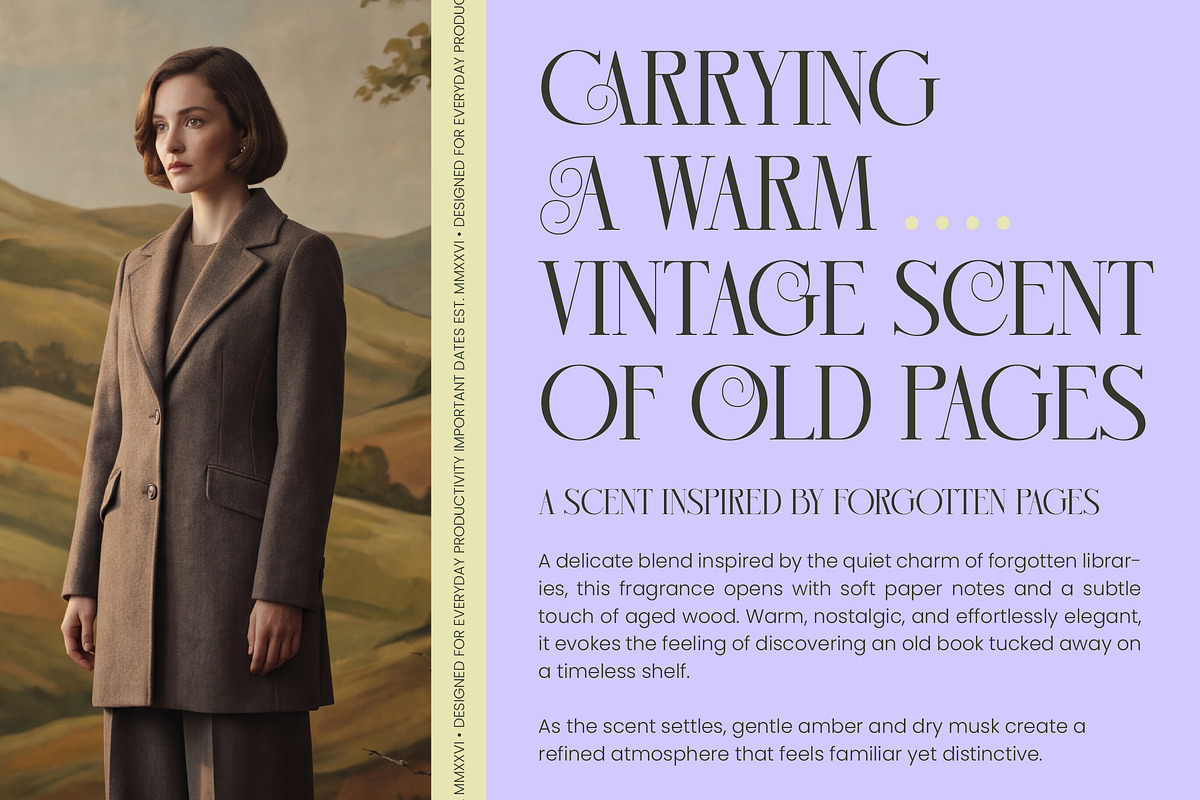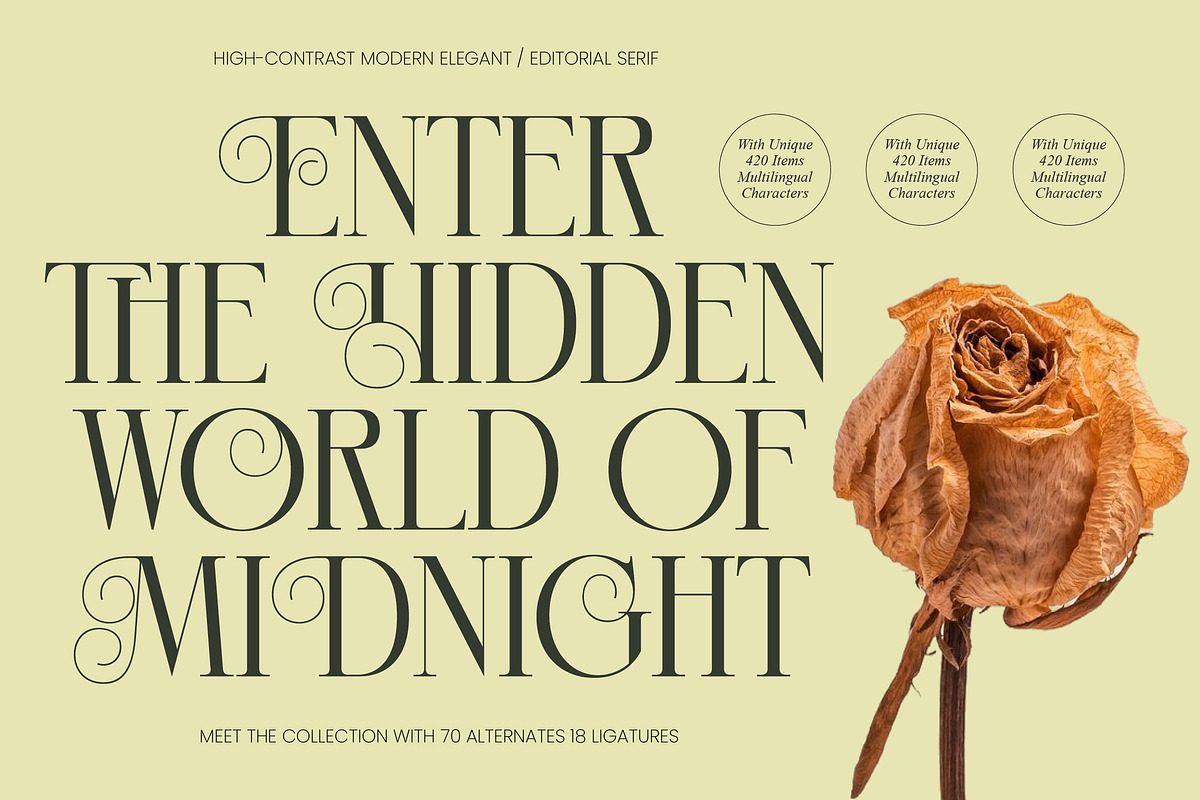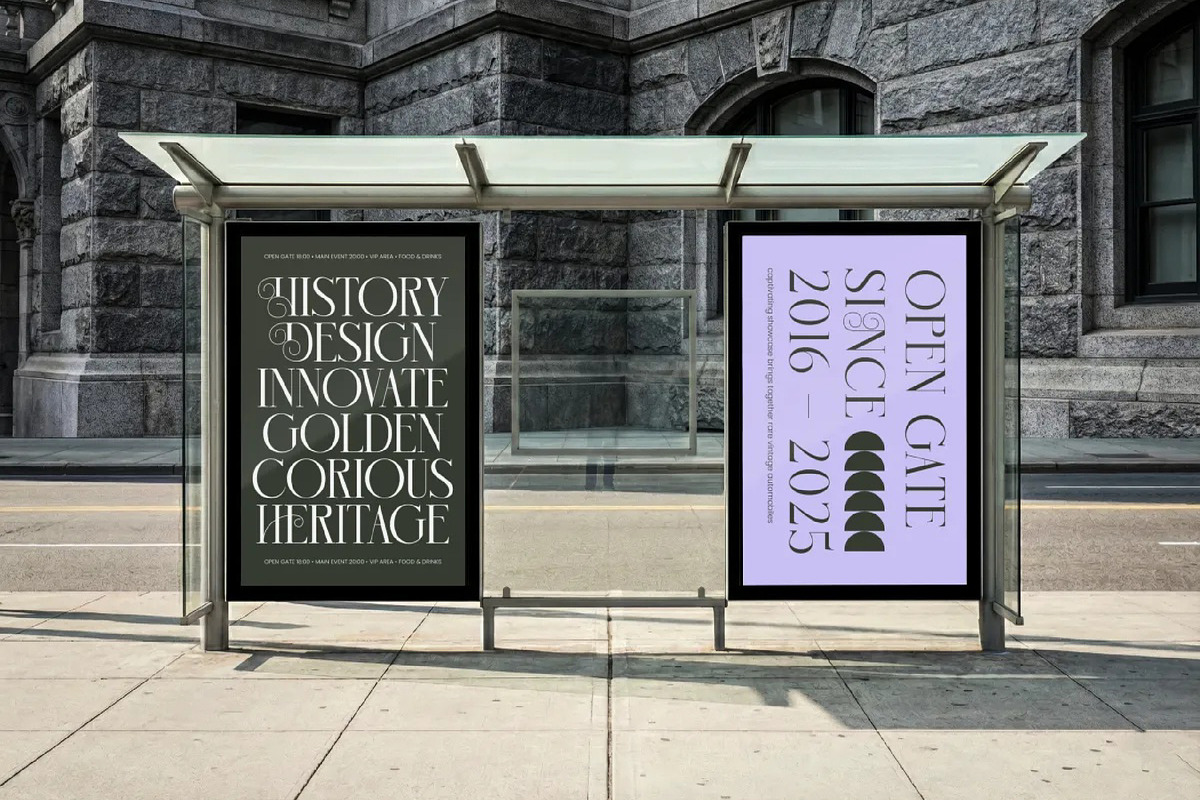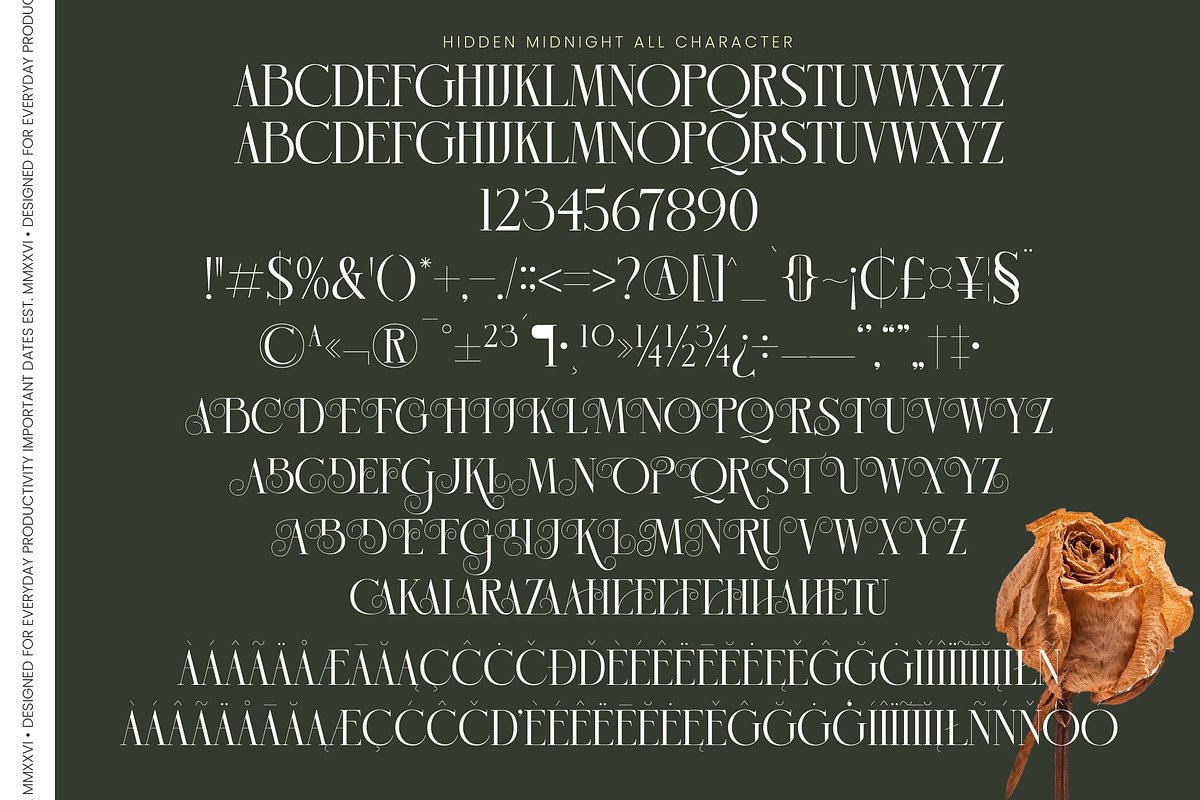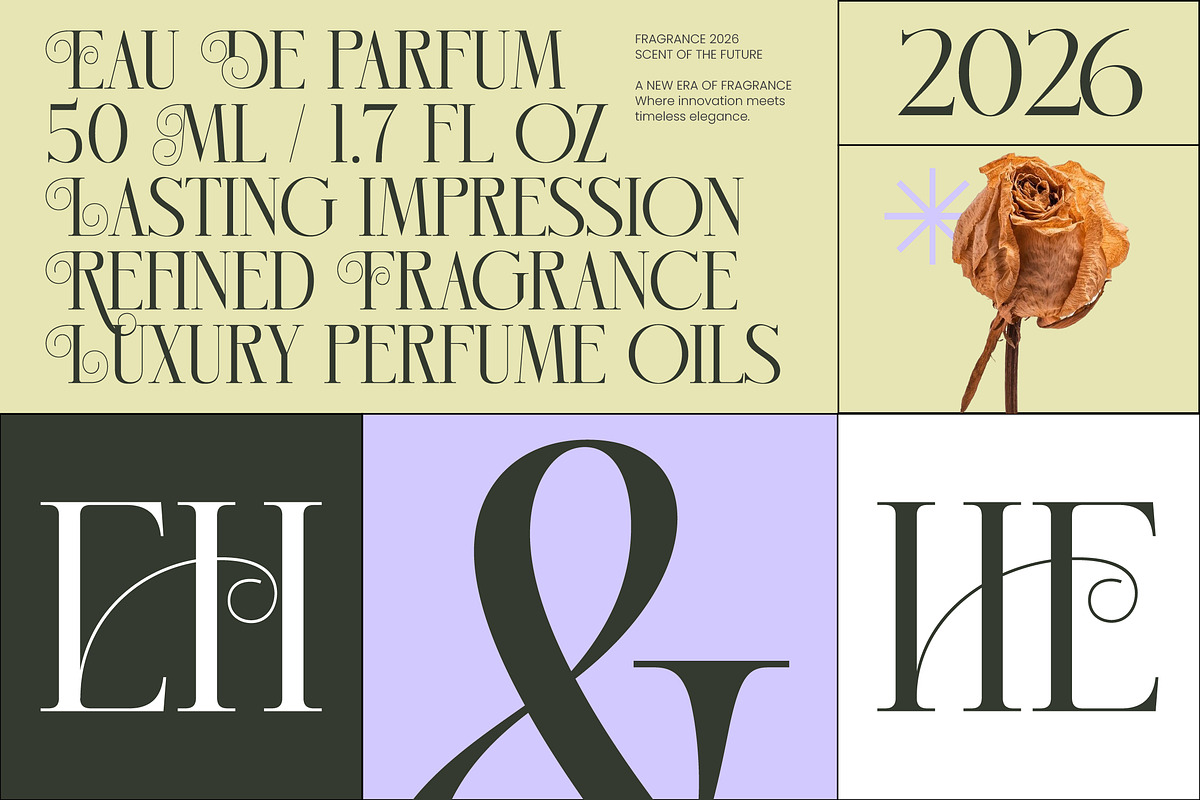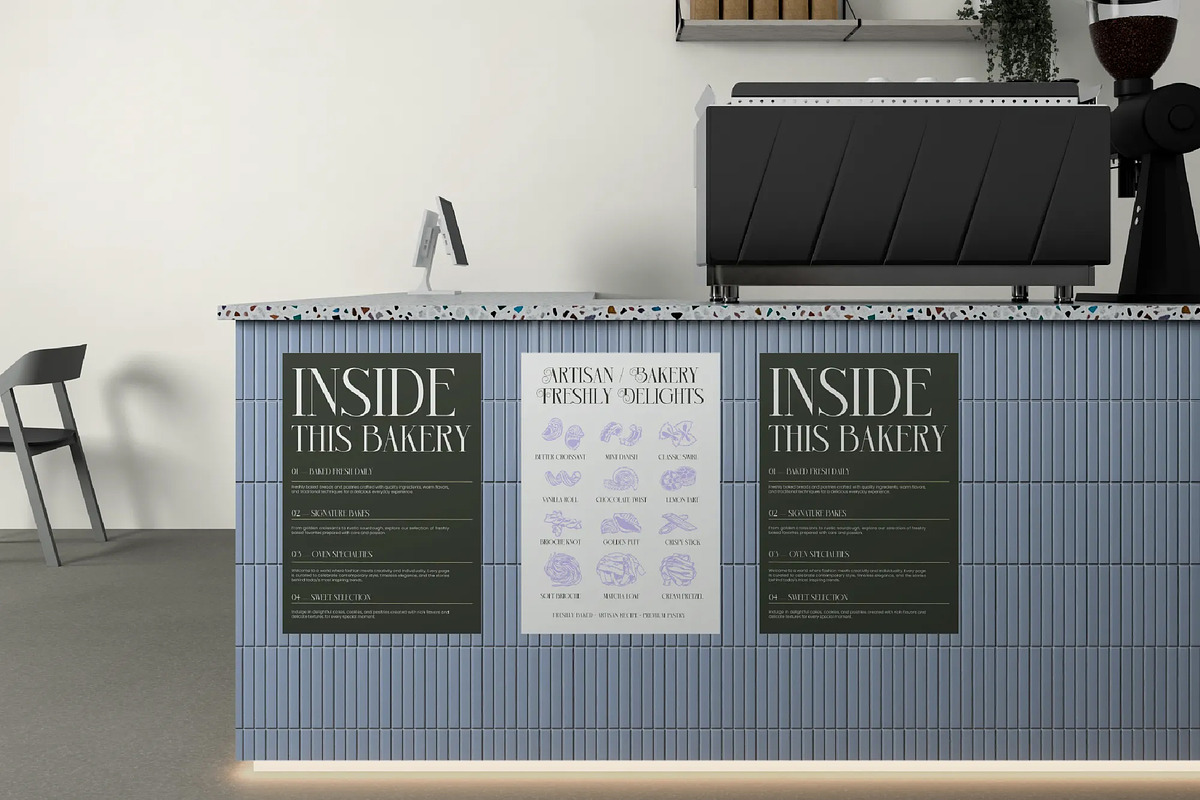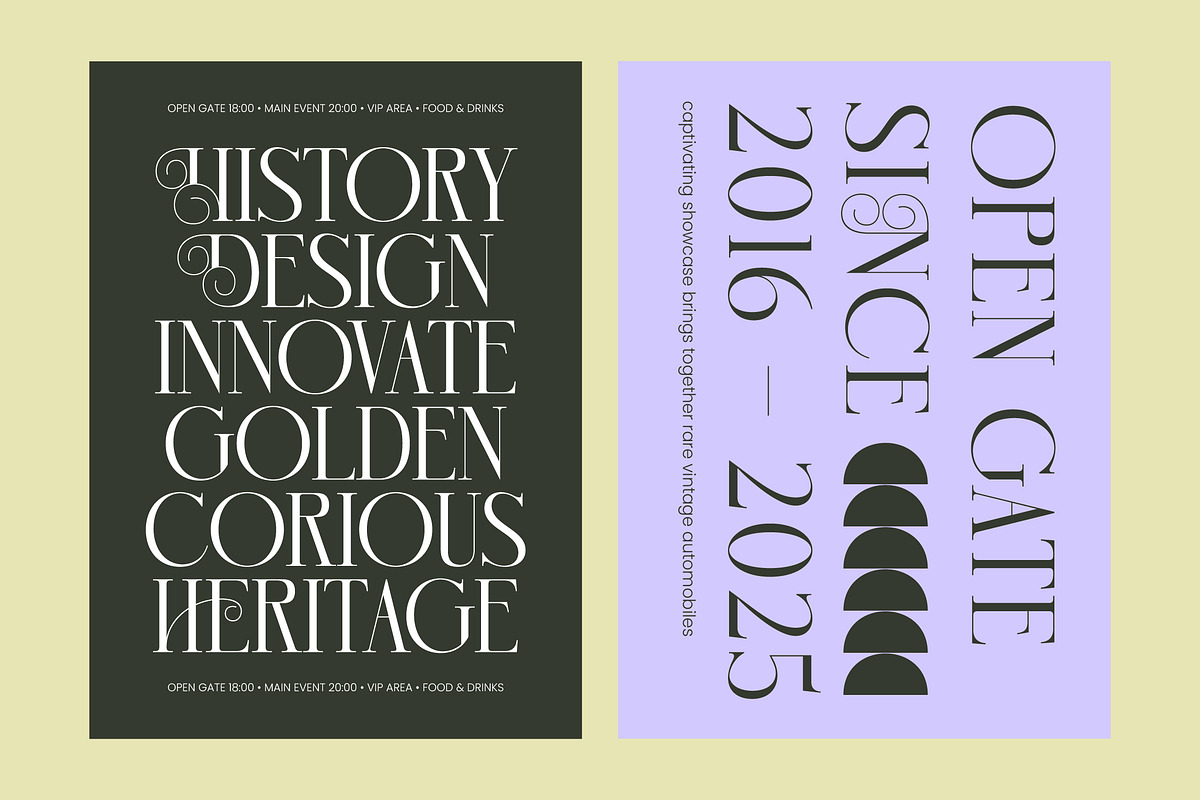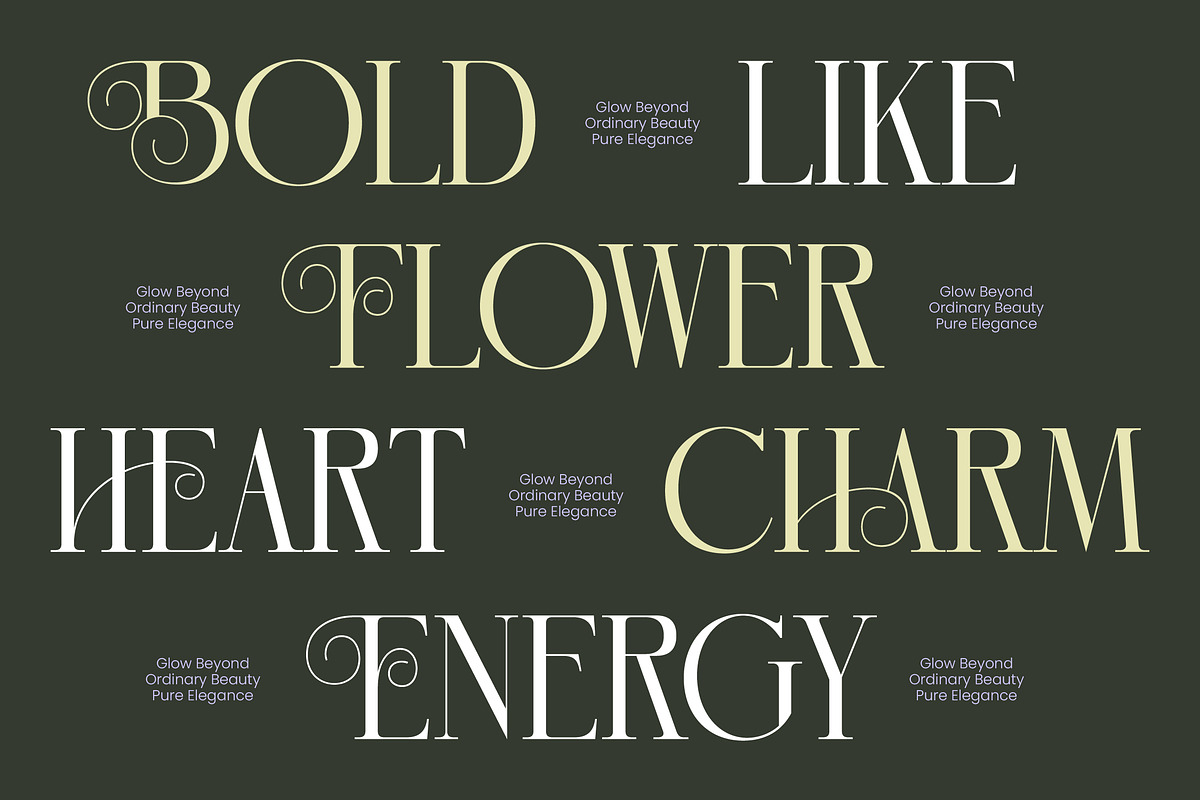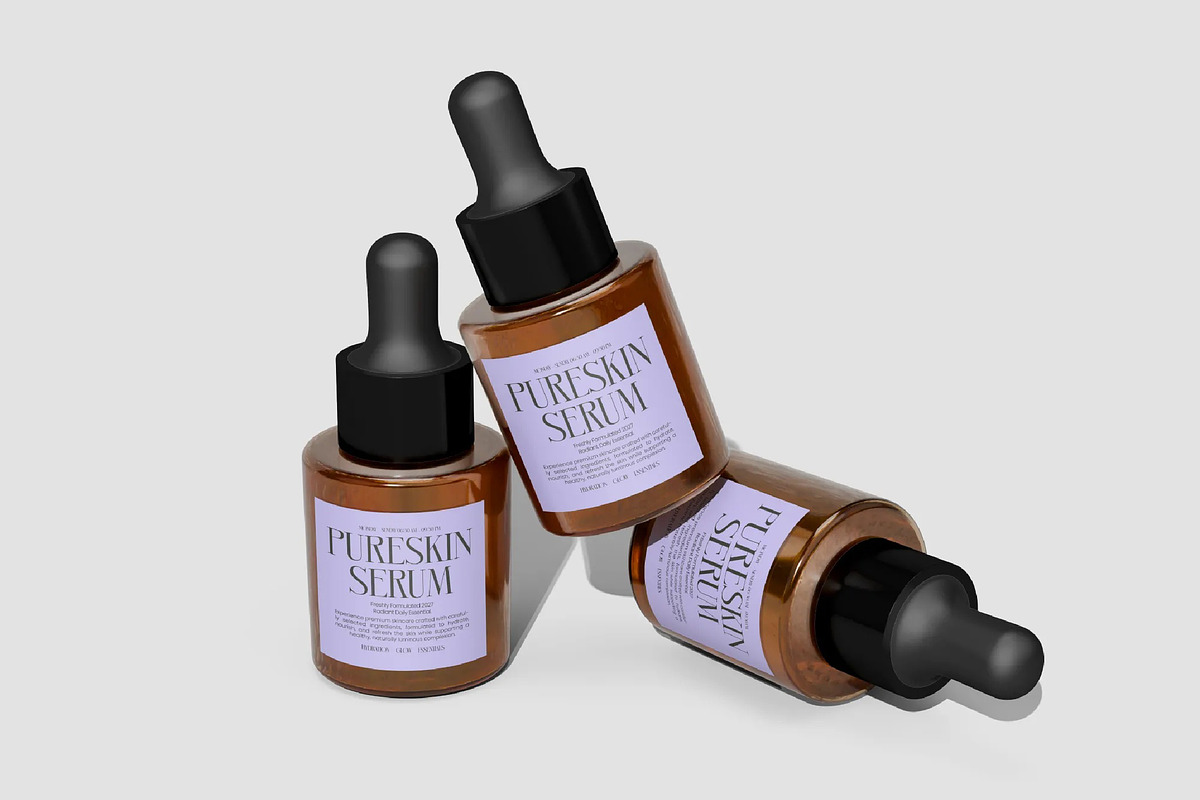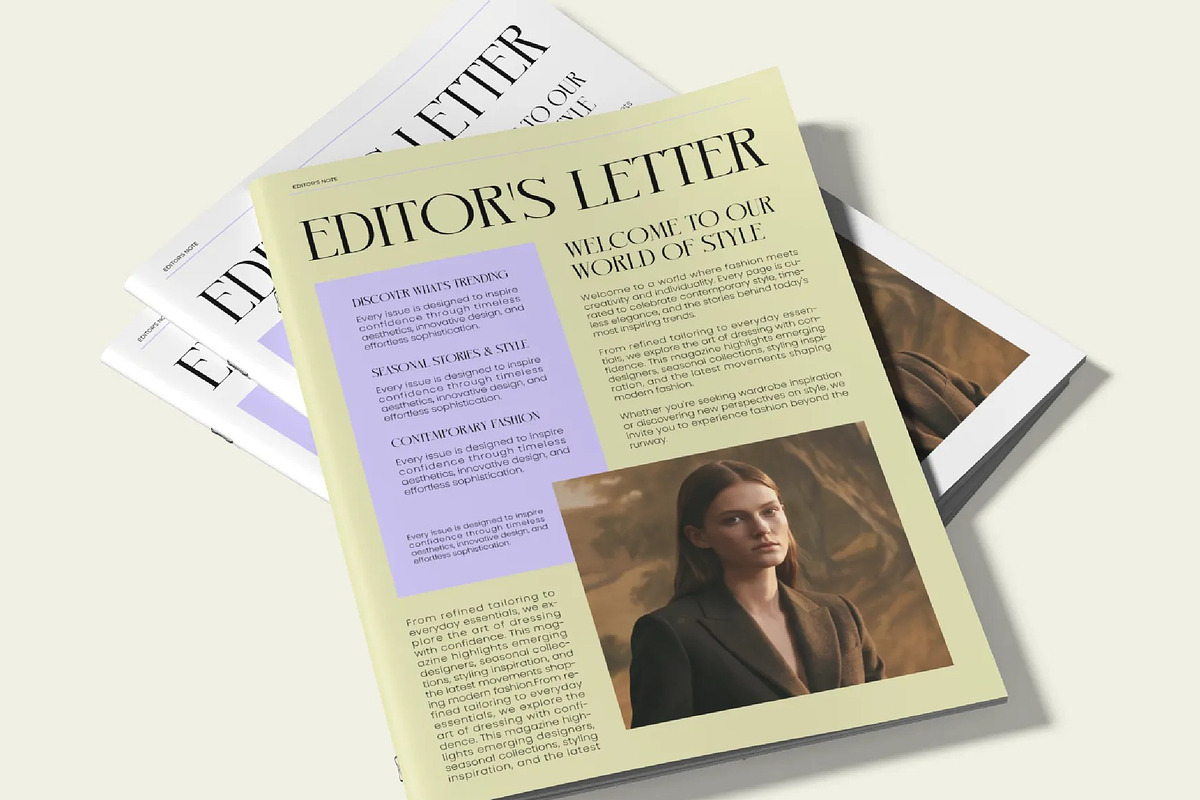
Hidden Midnight Modern Elegant Serif
Hidden Midnight - Modern Elegant Serif , Hidden Midnight is more than just a typeface; it is a whisper of luxury and a deep dive into the enigmatic beauty of the twilight hours. This font captures the essence of sophisticated mystery, inviting designers to craft narratives that linger long after the first glance.
Inspired by the quiet elegance of high-end perfume houses and the timeless allure of editorial masterpieces, this collection draws from the romantic shadows of the midnight garden. The visual story is one of withered roses and golden moonlight, blending classical structures with a contemporary, sharp edge.
Defined by its sharp terminals and dramatic strokes, this modern serif display is engineered for maximum luxury typography. It provides a high-contrast serif experience that ensures every word carries an editorial font weight, delivering a powerful branding impact for those who refuse to settle for the ordinary.
Perfectly aligned with the current modern serif trend, this typeface meets the demand for editorial display fonts that bridge the gap between vintage charm and minimalist chic. It stands at the forefront of character-driven typography, offering a unique visual identity that resonates with the aesthetics of today's high-fashion and boutique markets.
Whether you are developing a distinctive logo design or building a cohesive branding suite, this typeface excels in upscale environments. It is the ideal choice for editorial layouts, luxury product packaging, romantic wedding stationery, and high-end fashion lookbooks.
The versatility of the set is unlocked through a rich library of ligatures and decorative alternates that allow for bespoke character styling. With elegant swashes and comprehensive multilingual support, including a wide array of international characters, your creative reach is truly global.